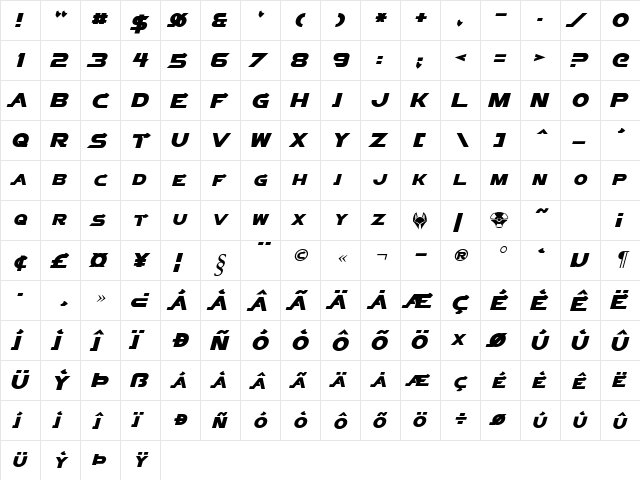
Vector Sigma Italic
| Designer | Neale Davidson |
Design Context for Vector Sigma Typeface
Vector Sigma is a composed and adaptable typeface that performs quietly and consistently across a wide range of design contexts. The slanted form adds forward momentum and visual energy.
Pro Tip: Try Vector Sigma for annotation and caption copy alongside an upright companion — the contrast in angle creates a dynamic but ordered typographic system.